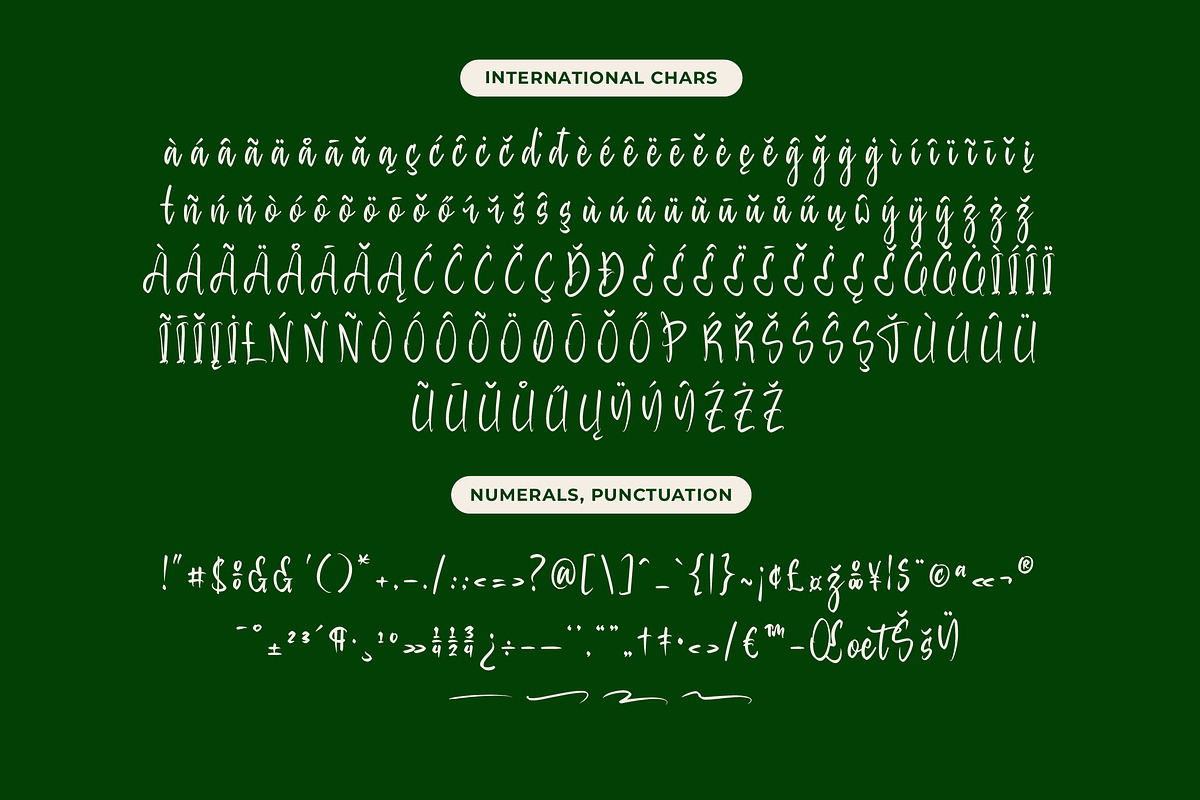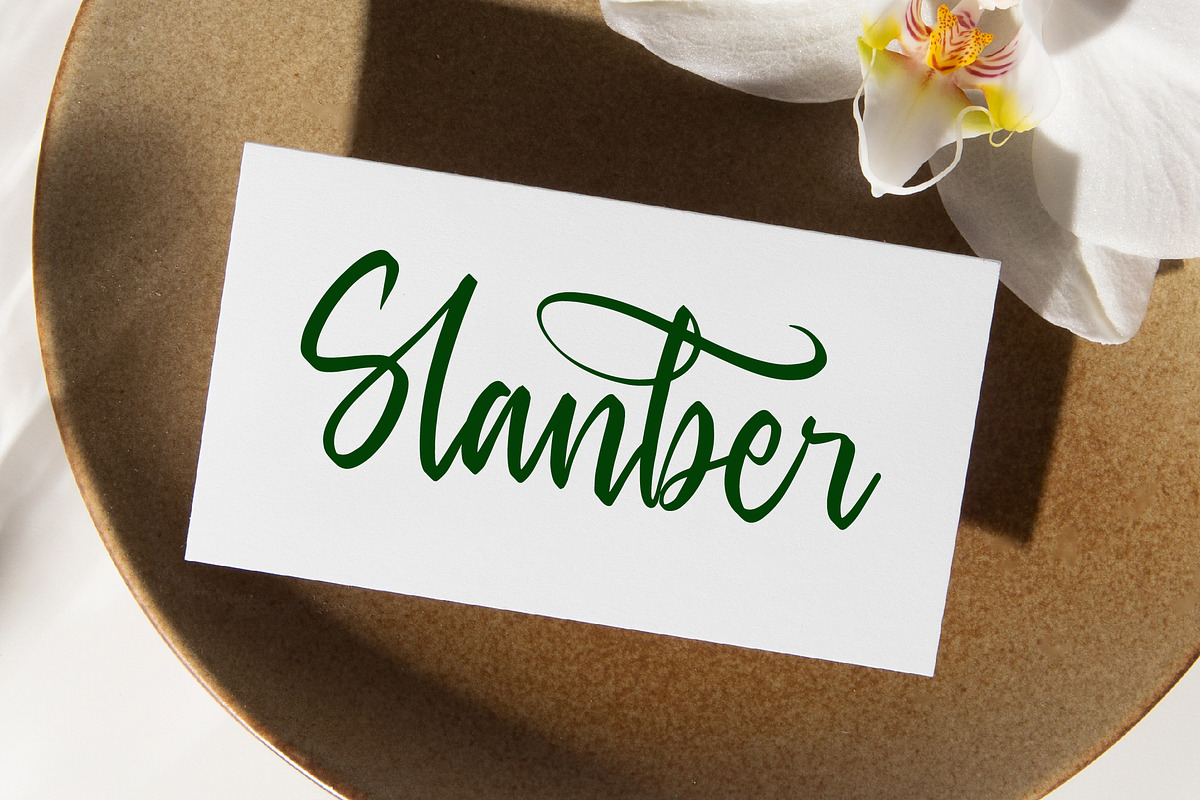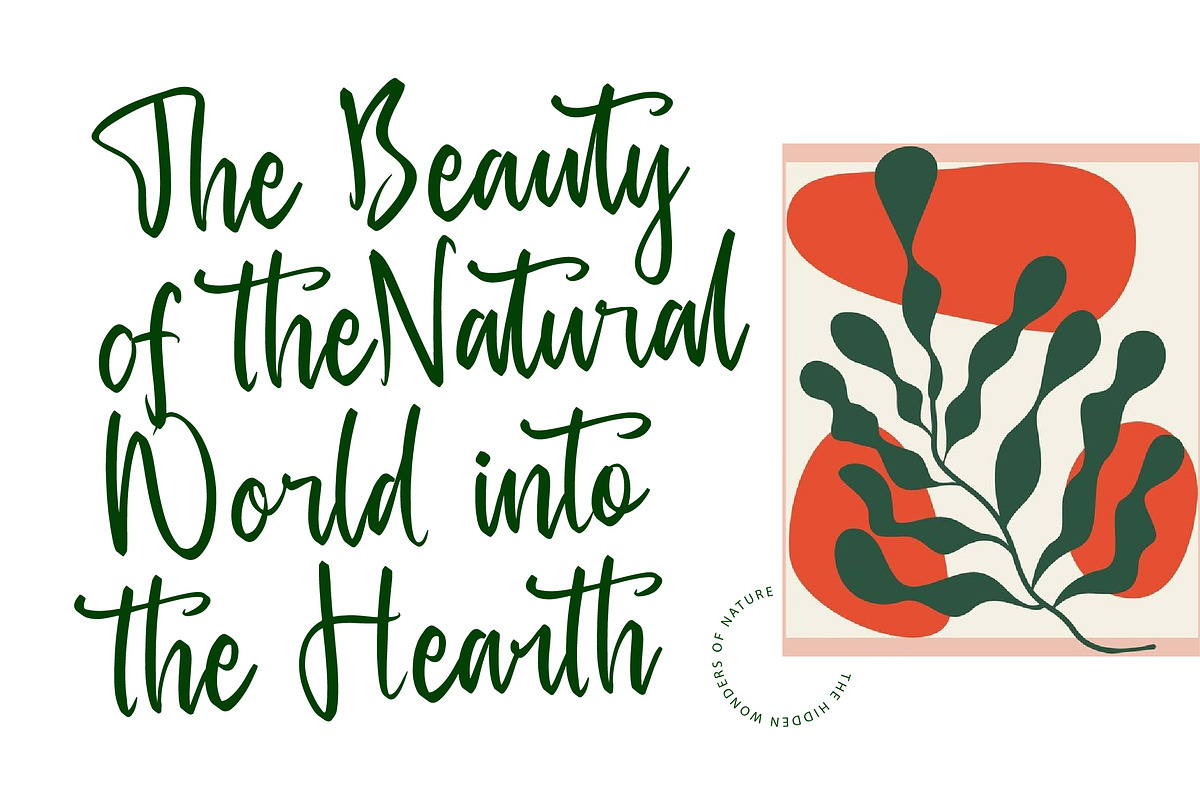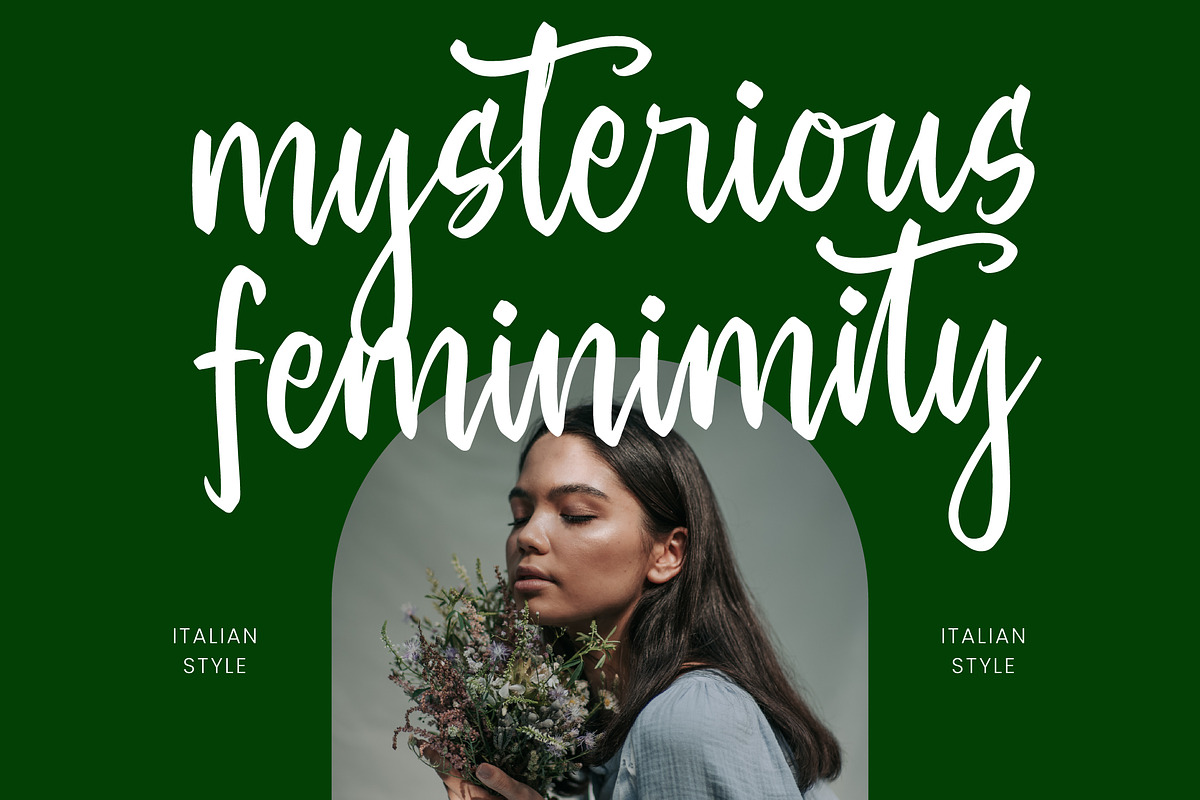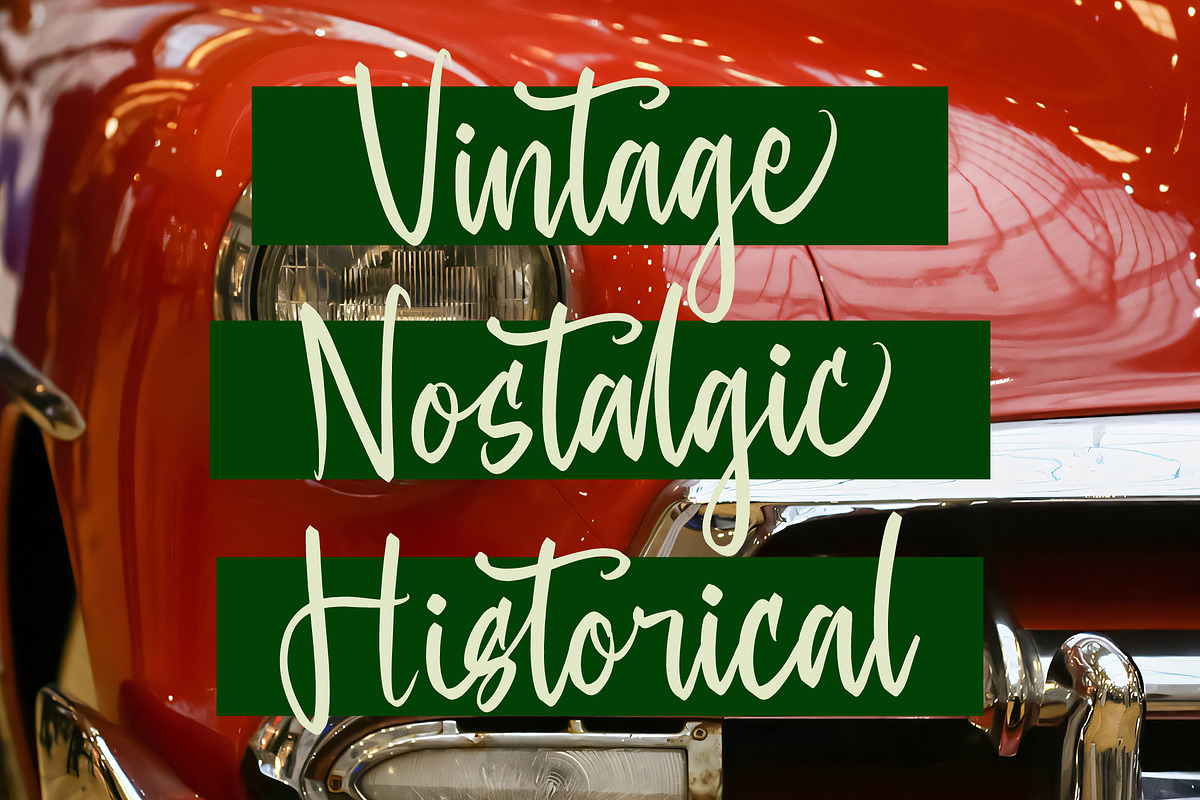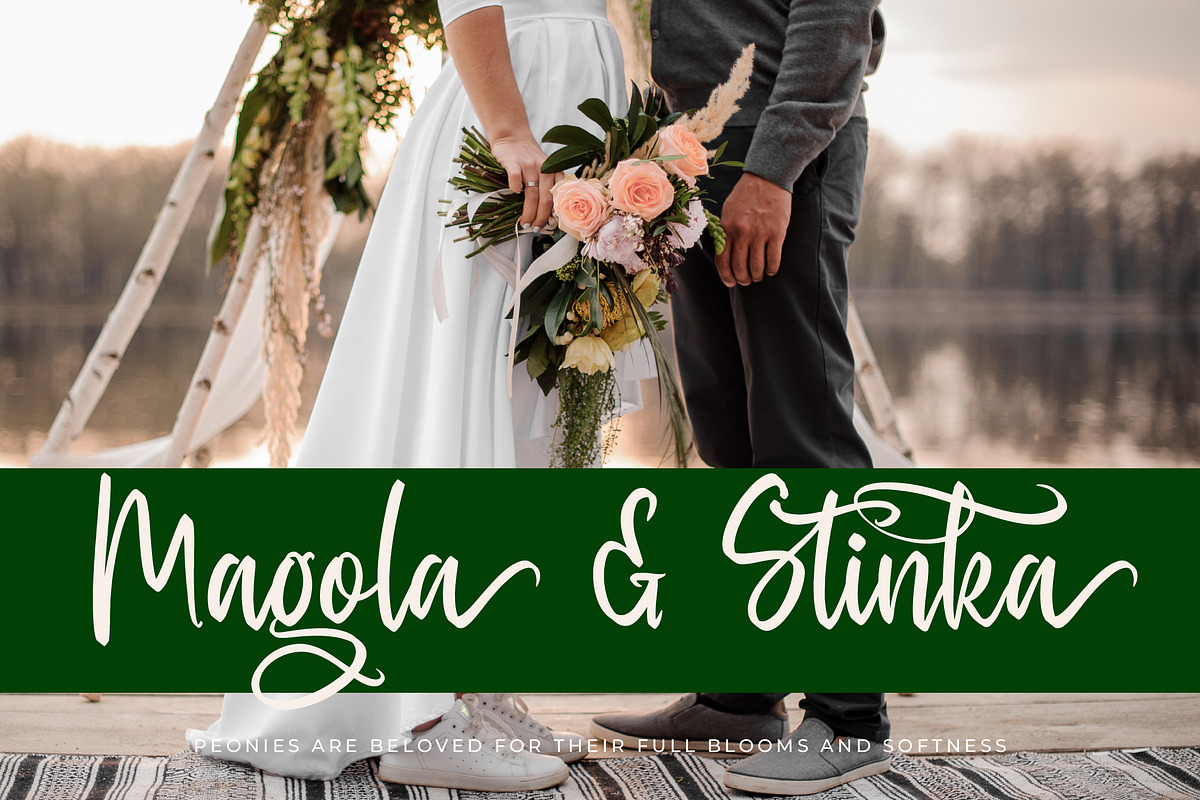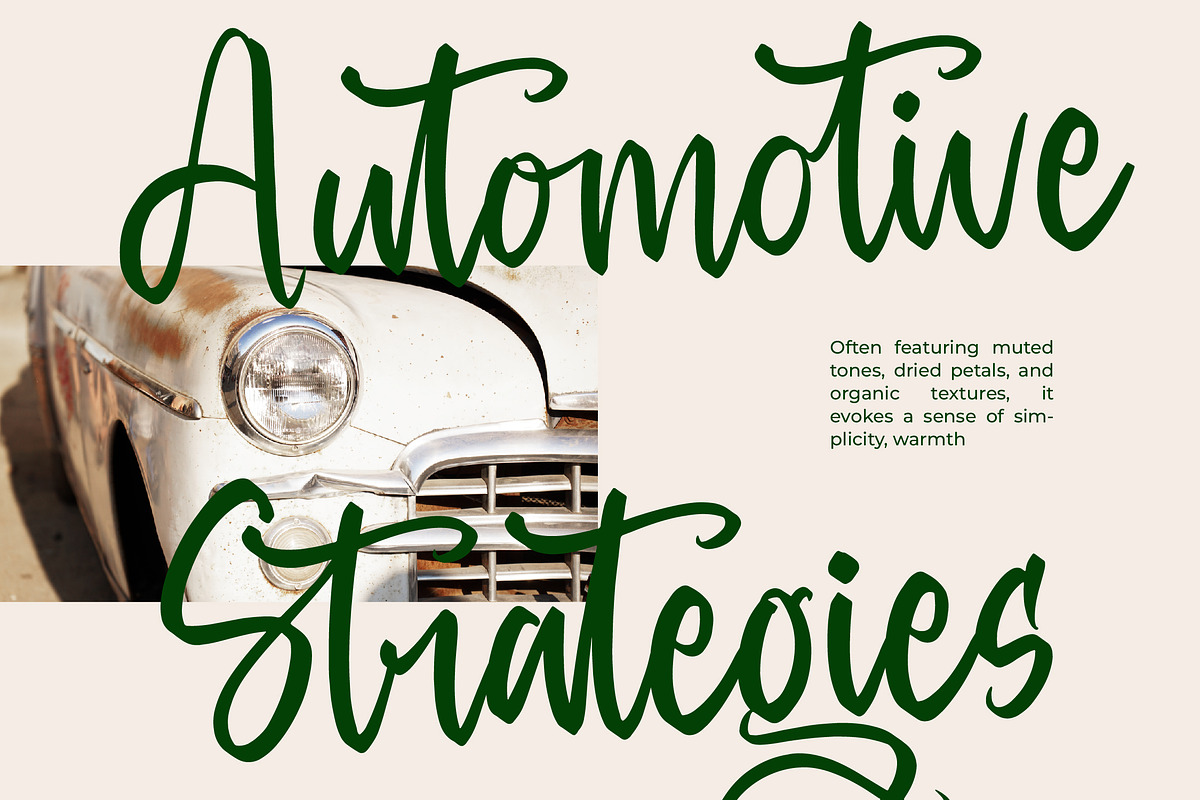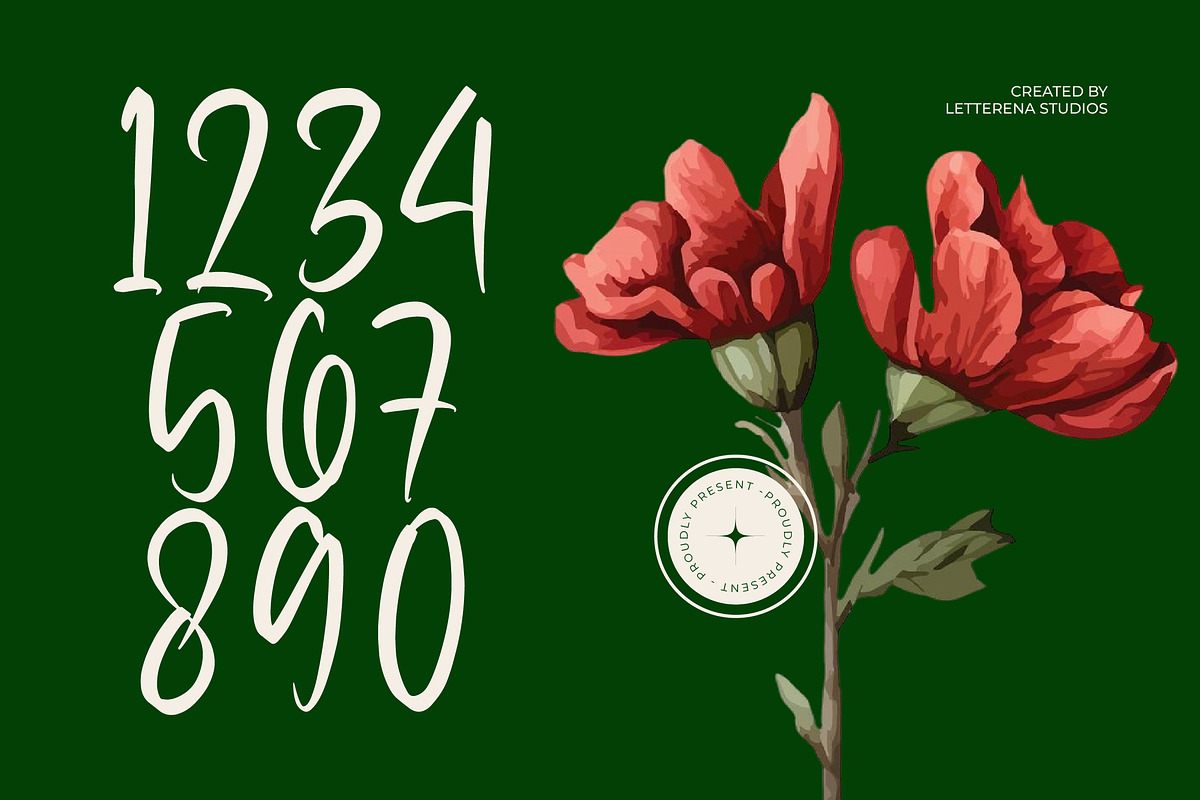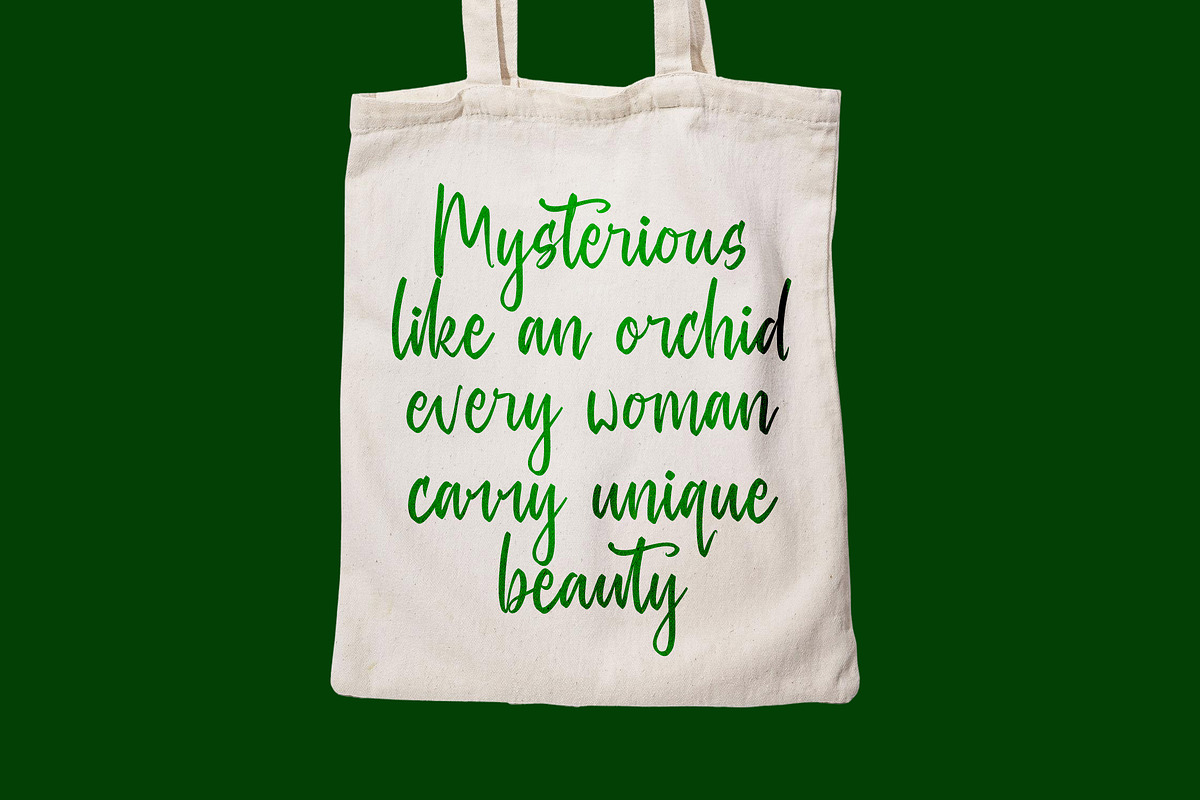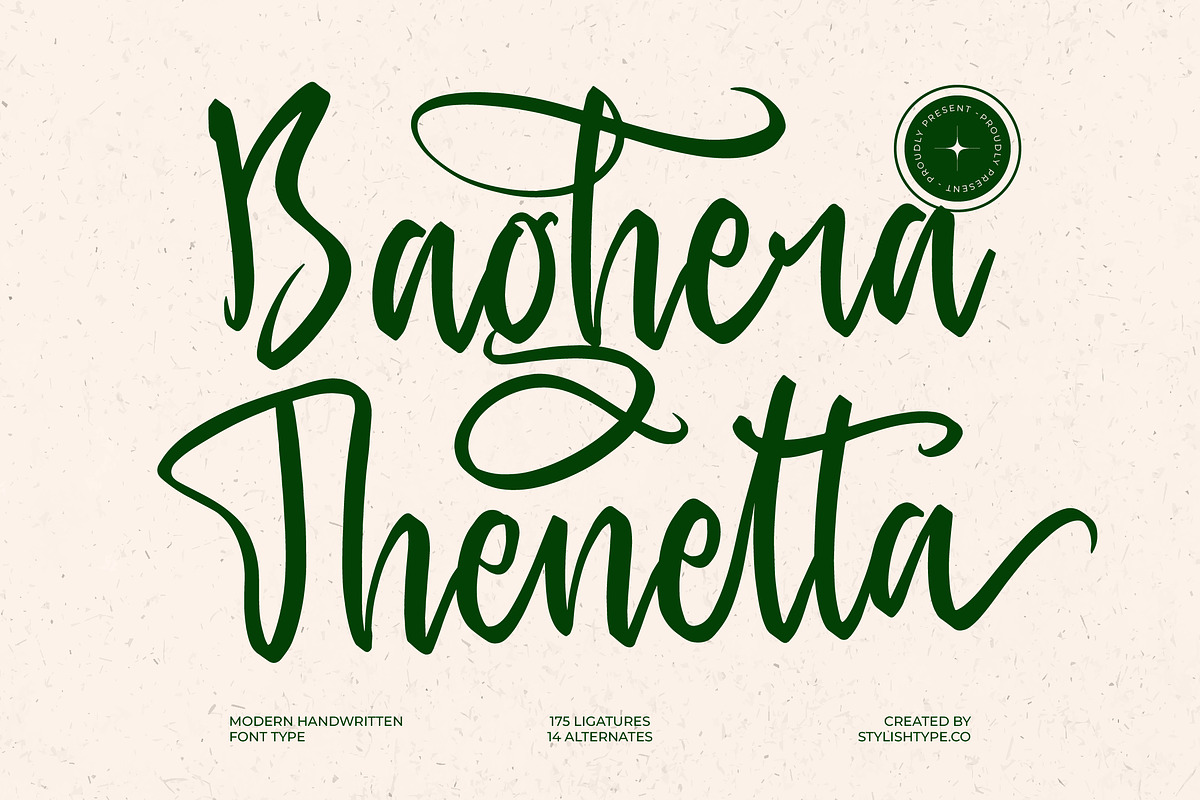
Baghera Thenetta Modern Handwritten
Baghera Thenetta - Modern Handwritten Font , from Stylishtype.Co , Suitable for any projects such as: logos, branding projects, homeware designs, product packaging, mugs, quotes, posters, shopping bags, t-shirts, book covers, name card, invitation cards, greeting cards, label, photography, watermark, special events, and all your other luxury and beautiful projects that need a Luxury Script taste.
- 175 Ligature 14 Alternates & Swashes